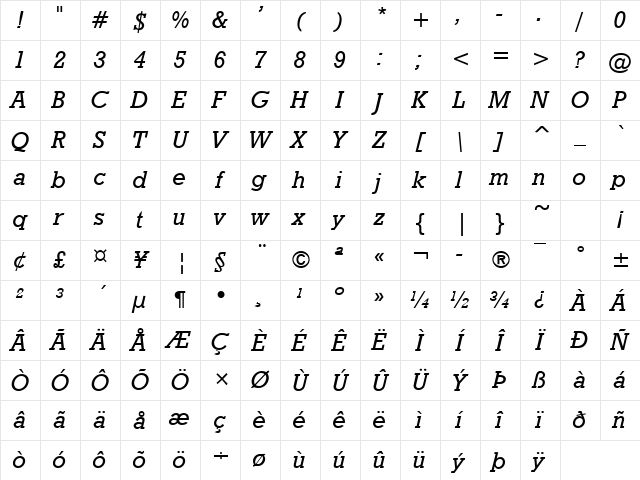
Rockland Italic
Design Context for Rockland
Rockland is a composed and adaptable typeface that performs quietly and consistently across a wide range of design contexts. The slanted form adds forward momentum and visual energy.